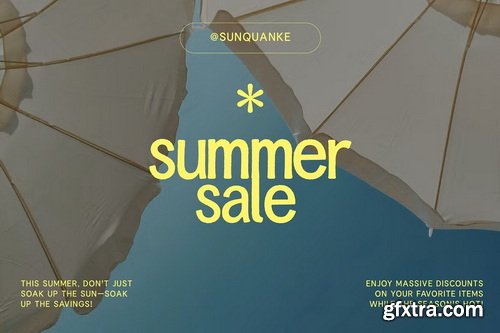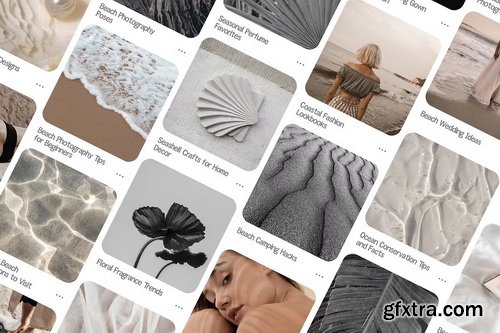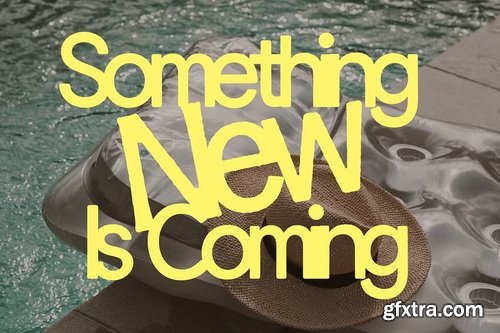
CreativeMarket - Sunquake - Shaky Display & Calm Font
Sunquake Font Duo combines the playful and organic charm of "Sunquake" with the sleek, modern functionality of "Sunquake Calm." Together, they create the perfect combination for any project that demands personality and readability. Whether you're designing a tropical brand identity, a vintage-inspired poster, or a minimalist website, this duo brings both creative freedom and balance to your design toolkit.
Perfect For
- Branding & Logos – Make a statement with bold headers and matching clean typography.
- Posters & Flyers – The perfect balance of creative flair and legibility.
- Packaging – Clean and modern for product labels with a tropical, artistic touch.
- Web & Social Media – Use in headings, subheadings, or call-to-action buttons for unique style.
Font Features
- Shaky, distorted style with irregular strokes for a handmade, vintage feel.
- Perfect for headlines, logos, and bold statements.
- Includes alternate characters with unique swashes and ligatures.
- Geometric, sans-serif with soft, rounded terminals and even stroke width.
- Designed for body text, subheadings, or captions in print and digital formats.
- Pairs beautifully with Sunquake for harmonious visual compositions.